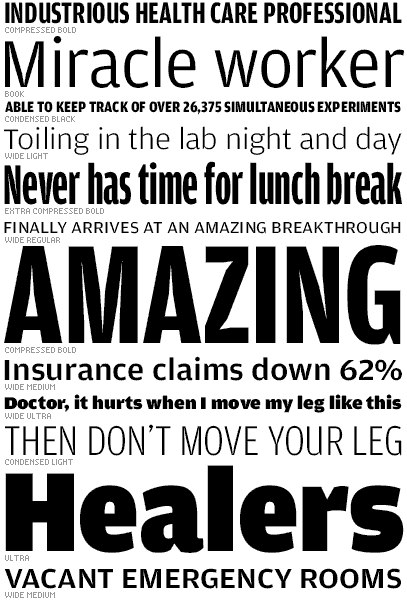
Amplitude
A successful agate predicts the spread of ink on paper and effectively keeps legibility under less than ideal conditions. Fascinated by the visual aspects of these entirely functional compensations, Christian Schwartz designed Amplitude, an extensive sanserif series for text and display that turns function into style: deep angled cuts keep small sizes readable, while adding character at display sizes. FB 2003